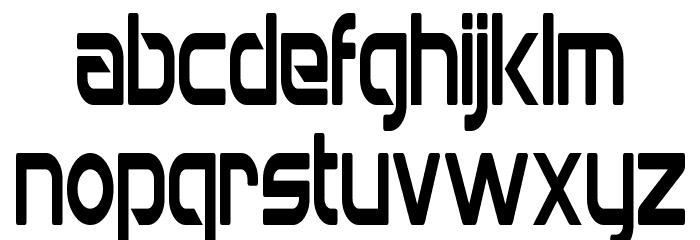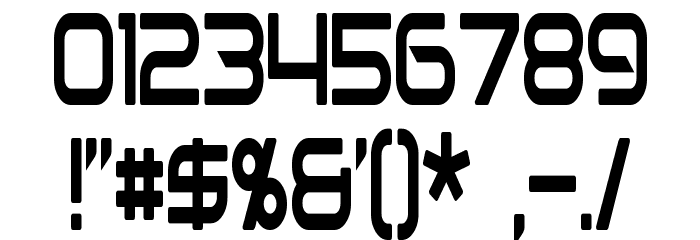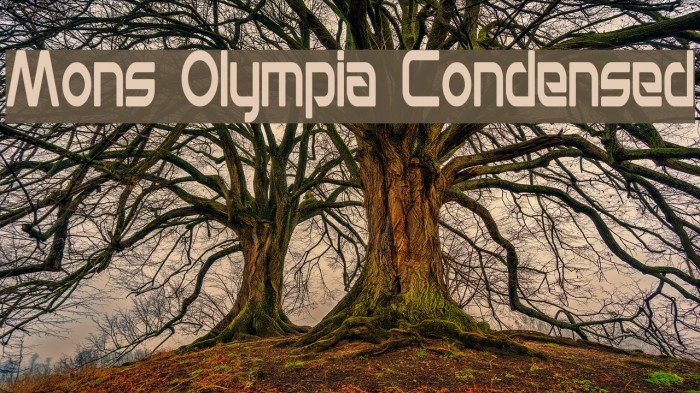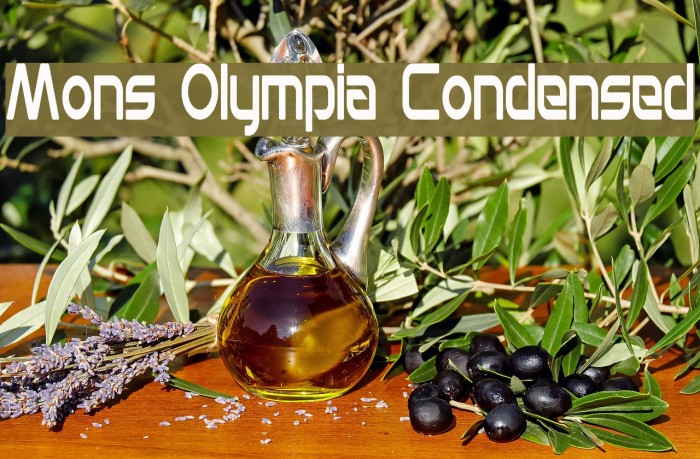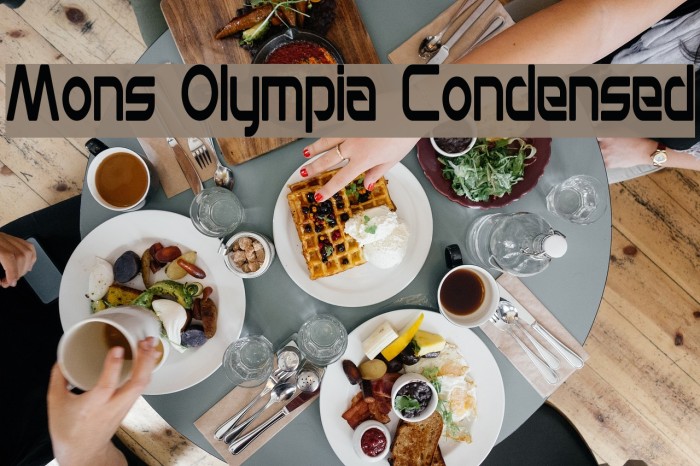
Mons Olympia Condensed Font
This font features a modern and geometric design with a condensed structure, giving it a sleek and streamlined appearance. The characters are bold with a uniform stroke width, creating a strong visual impact. The rounded edges and clean lines contribute to its contemporary style, making it suitable for a variety of design applications. The uppercase and lowercase letters maintain a consistent height, while the numerals and special characters are designed to complement the overall aesthetic. This font is ideal for projects that require a modern and professional look.
A modern, geometric, and condensed font with bold, uniform strokes.
- Proposed Projects: Ideal for branding, advertising, headlines, and digital media projects.
- Use Case: Headlines, Logos, Branding